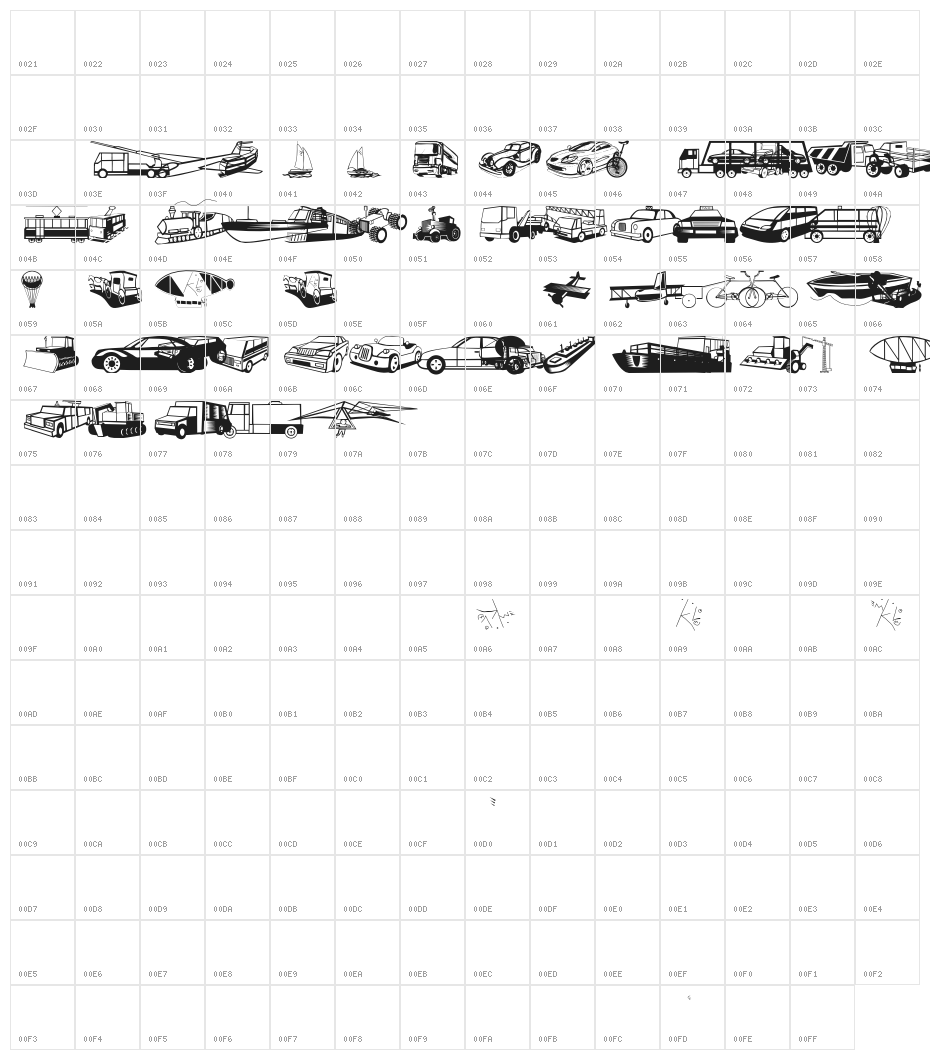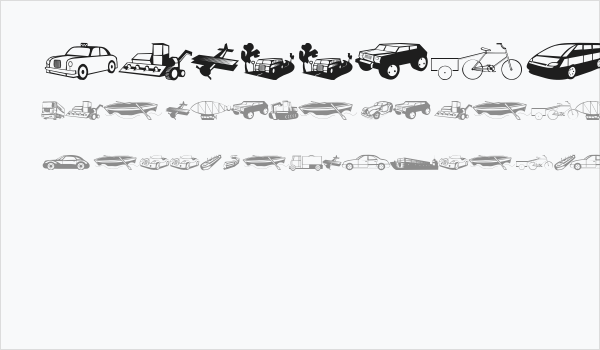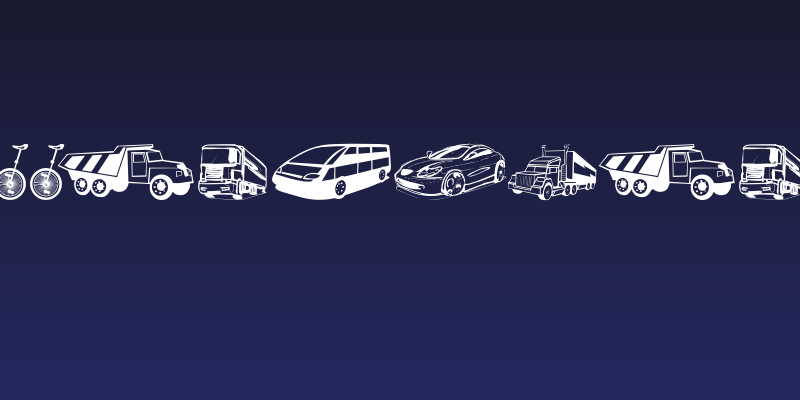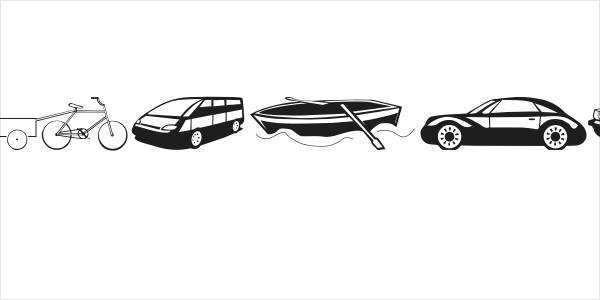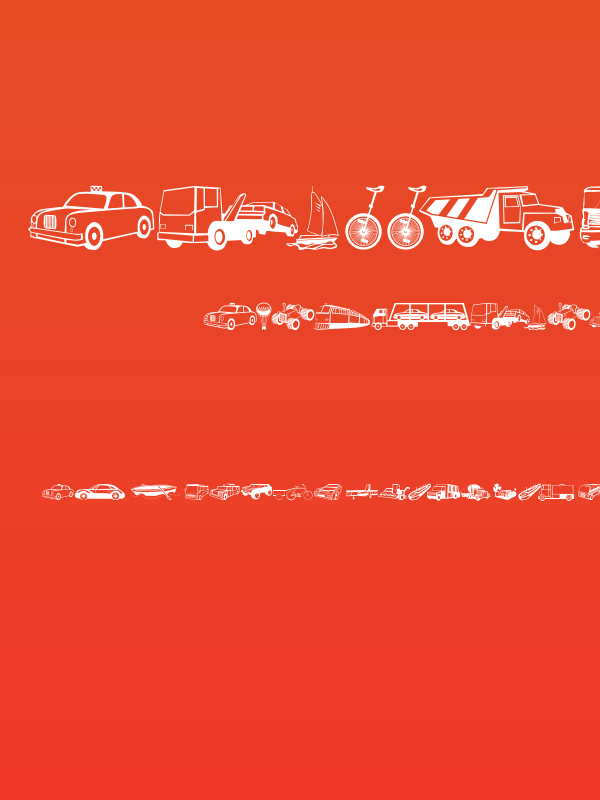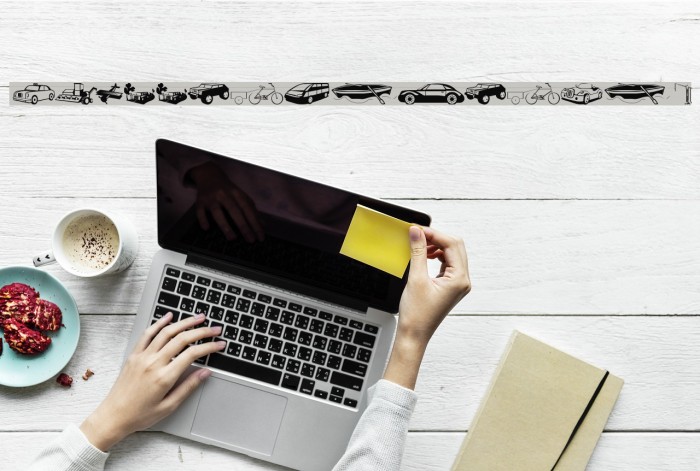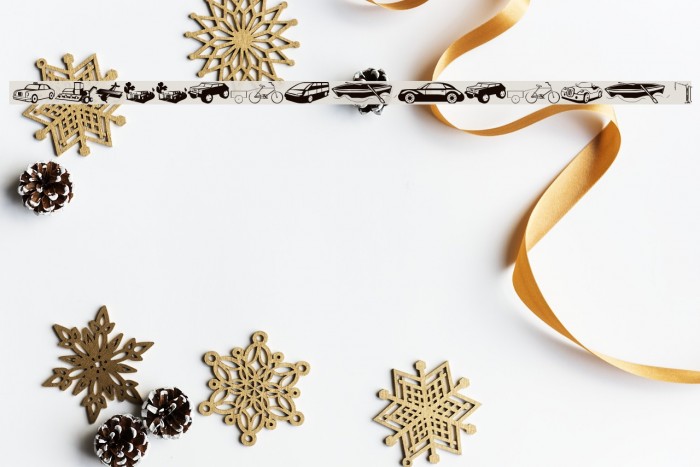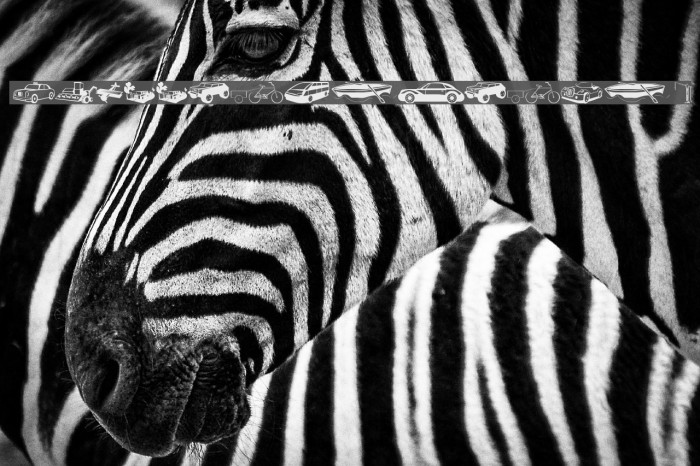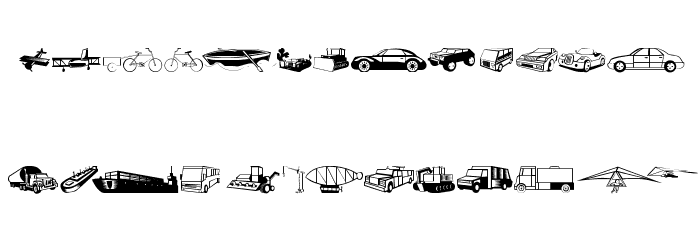
TrafficVehicles Font
TrafficVehicles Description
A collection of detailed, black-and-white vehicle and transportation-themed pictograms, each representing a different mode of transport including cars, trucks, boats, planes, bicycles, and specialty vehicles. The icons are outlined with varying levels of detail and are consistent in line weight, making them suitable for thematic illustrations.
| Overall Style | Decorative, Thematic |
| Use Case | Icons, Illustrations, Themed graphics |
| Proposed Projects | Infographics, educational materials, transport maps, signage, children's books, themed posters. |